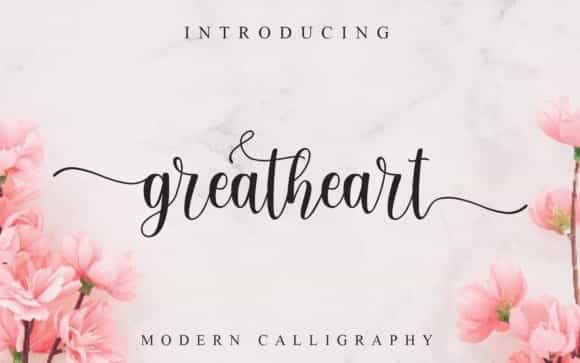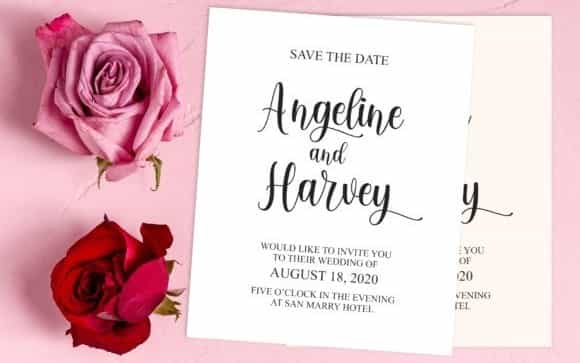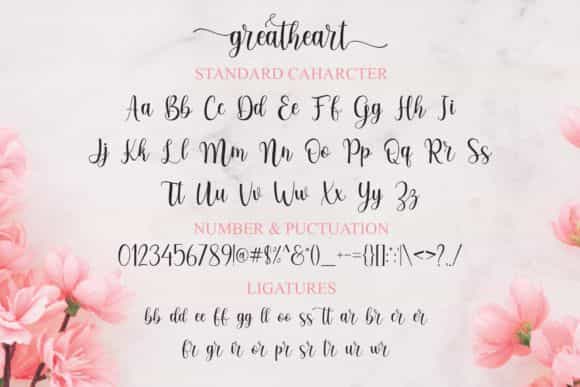
Greatheart is a very stylish and elegant Calligraphy font. You will love its genuine look and you can use it to produce wonderful wedding invitations, nice stationary art, interesting social media posts and lovely greeting cards.